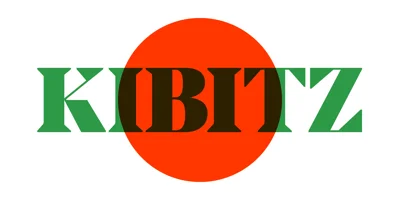
Kibitz Font
Kibitz Font is perfect for conversational chat app interfaces, social media platform designs, community forum branding, friendly blog layouts, casual messaging applications, informal newsletter designs, approachable customer service materials, neighborhood community boards, friendly advice column headers, and engaging social communications that require conversational warmth and approachable dialogue.
This font is exciting because it perfectly captures the lively spirit of friendly conversation and community dialogue with letterforms that feel like they're engaged in animated discussion, embodying the warm social energy and collaborative spirit essential for community-building and social interaction. Kibitz Font features approachable curves and conversational proportions that reflect the inclusive nature and friendly advice-giving that defines positive social communication.
Kibitz Font family includes Regular, Bold, Light, Chat, Social, Friendly, Community, and Conversational versions, plus social symbols, chat ornaments, community icons, and dialogue elements that enhance the engaging social aesthetic and provide comprehensive solutions for communication and community applications.
For social communication and community design projects, Kibitz Font delivers unmatched conversational appeal and social connectivity. The font's friendly letterforms and dialogue character make it perfect for social platforms, community organizations, and communication brands seeking to foster engagement, build connections, and encourage positive social interaction. Its approachable design appeals to users who value community participation and friendly dialogue. The character set includes social alternates and conversational variations that enhance the community engagement experience. Professional designers appreciate its ability to convey both genuine friendliness and professional accessibility while maintaining excellent readability across social media platforms, community communications, and dialogue-focused applications, making it essential for brands that want to project the warm conversational energy and inclusive community spirit that defines successful social interactions and builds lasting connections in today's digitally connected world.